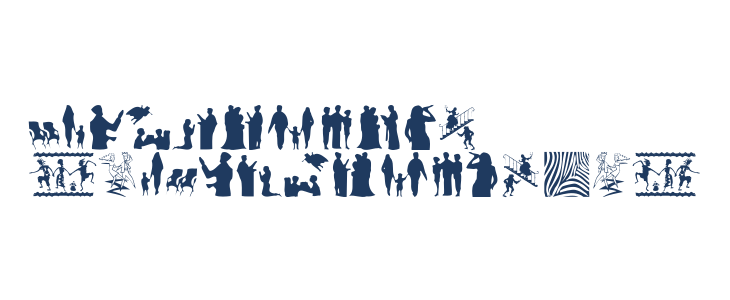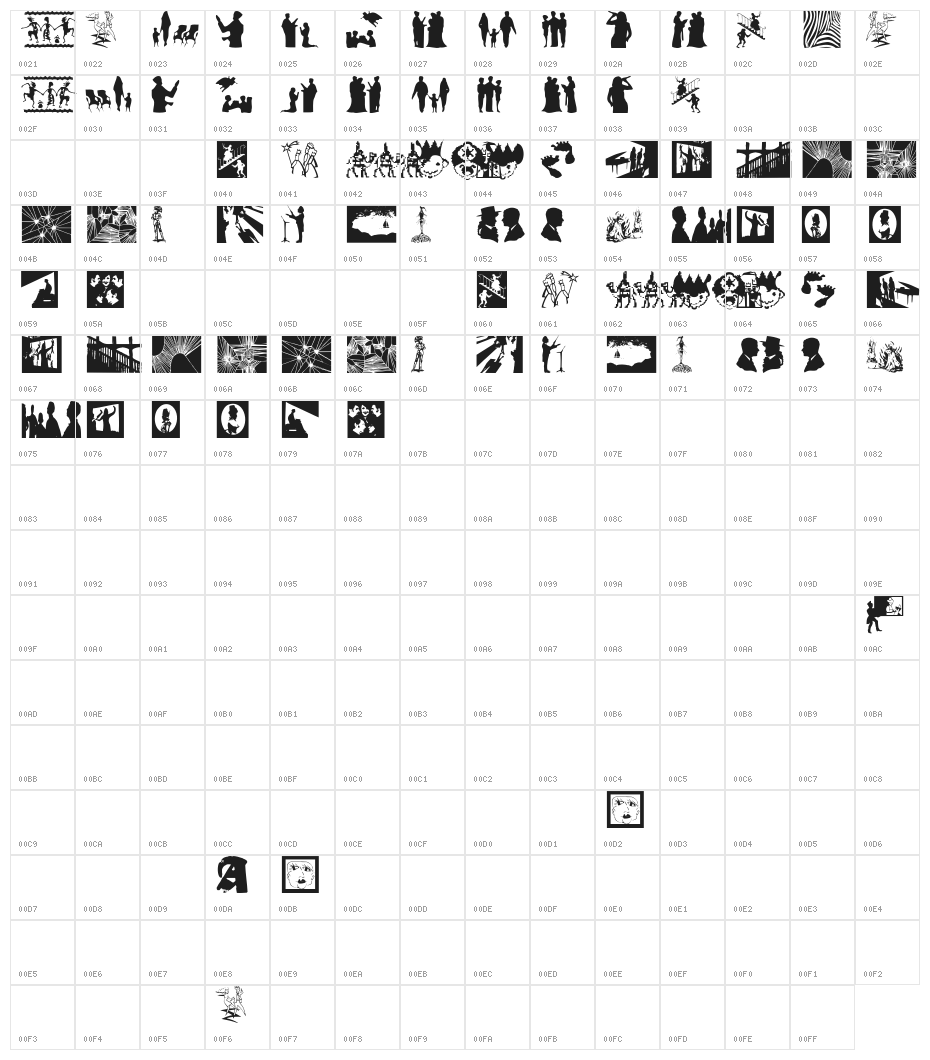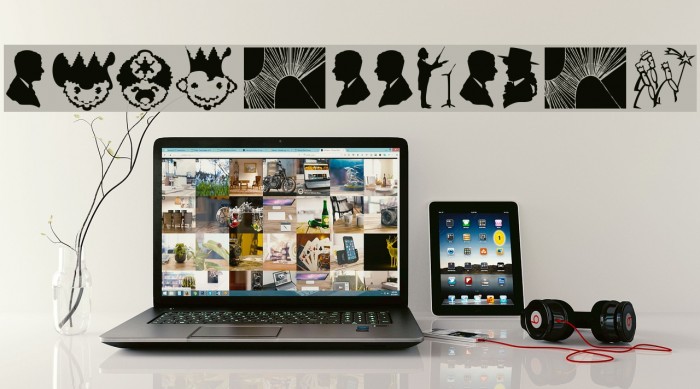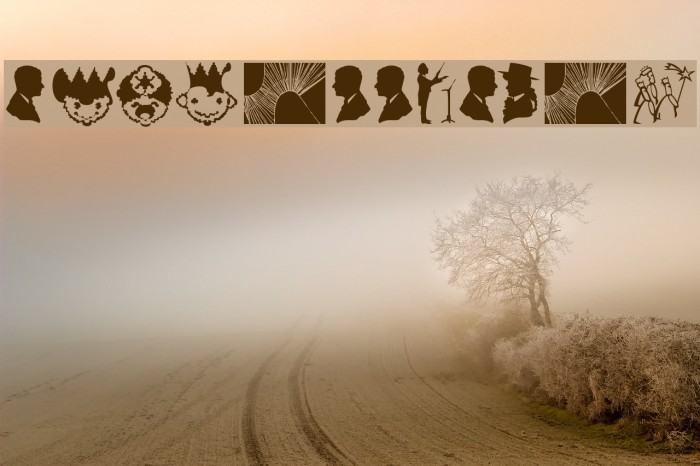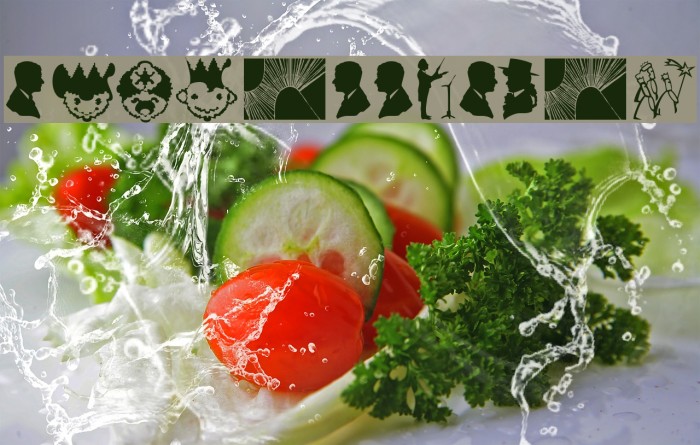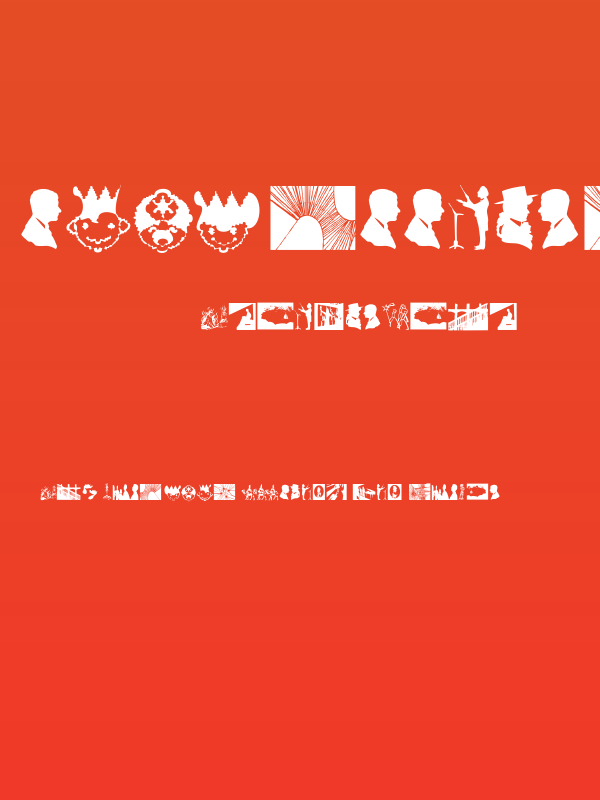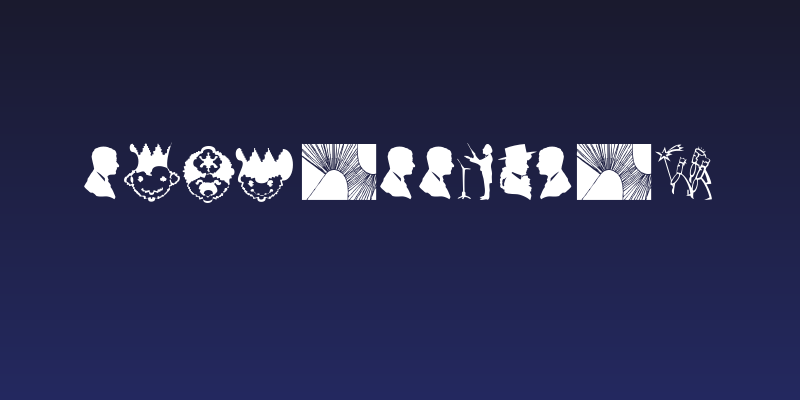
Scissoria Font
Scissoria Description
This is not a traditional font but rather a collection of intricate silhouettes and decorative elements. Each character is represented by a unique illustration, featuring various scenes and figures that convey a sense of storytelling and drama. The designs are detailed and artistic, with a strong emphasis on contrast and form. The silhouettes include human figures, animals, and abstract shapes, all rendered in solid black against a white background. This collection is more akin to a series of pictograms or icons rather than a conventional typeface, offering a visually engaging and thematic experience.
| Proposed Projects | Ideal for creative projects such as storybooks, graphic novels, or themed event invitations where visual storytelling is key. |